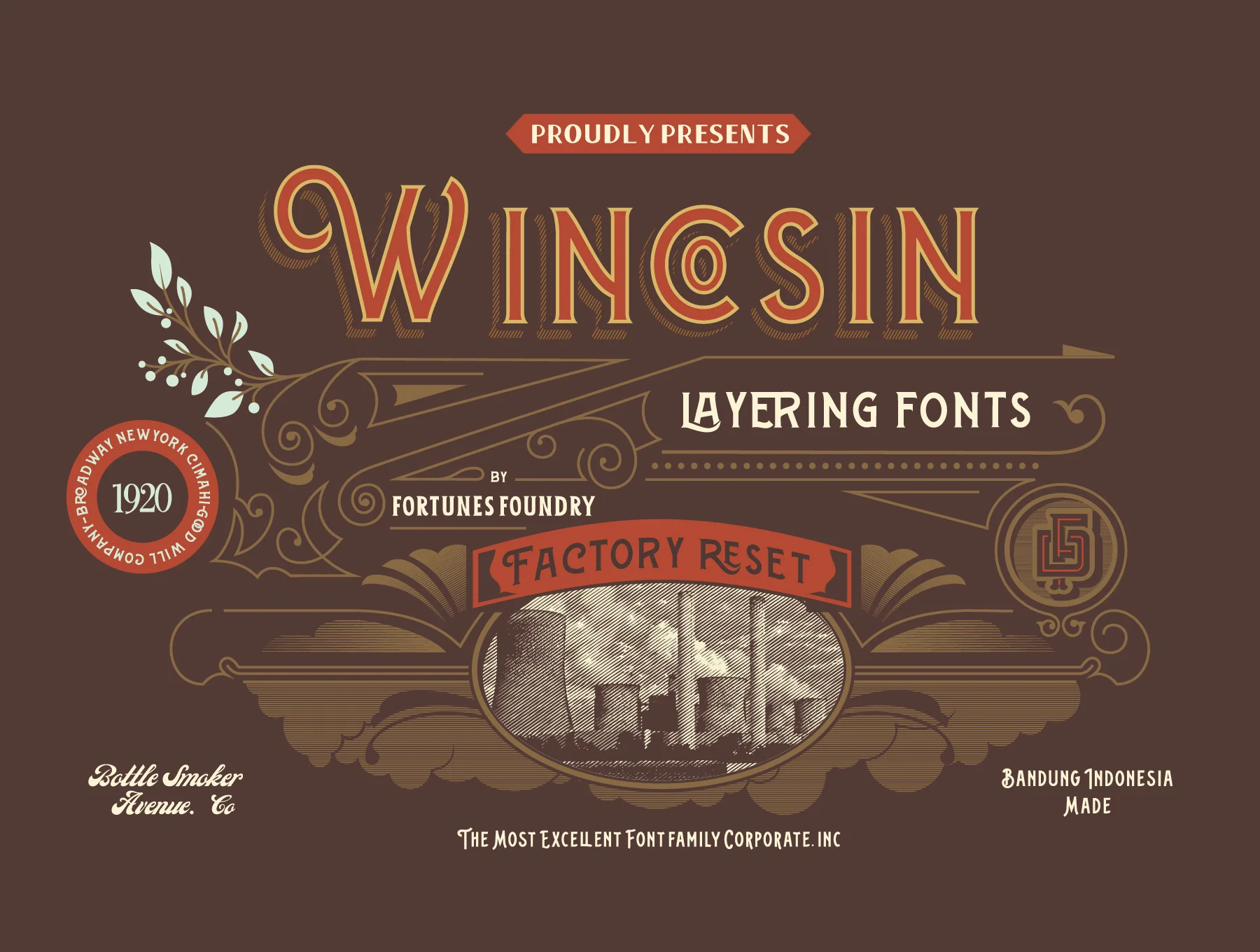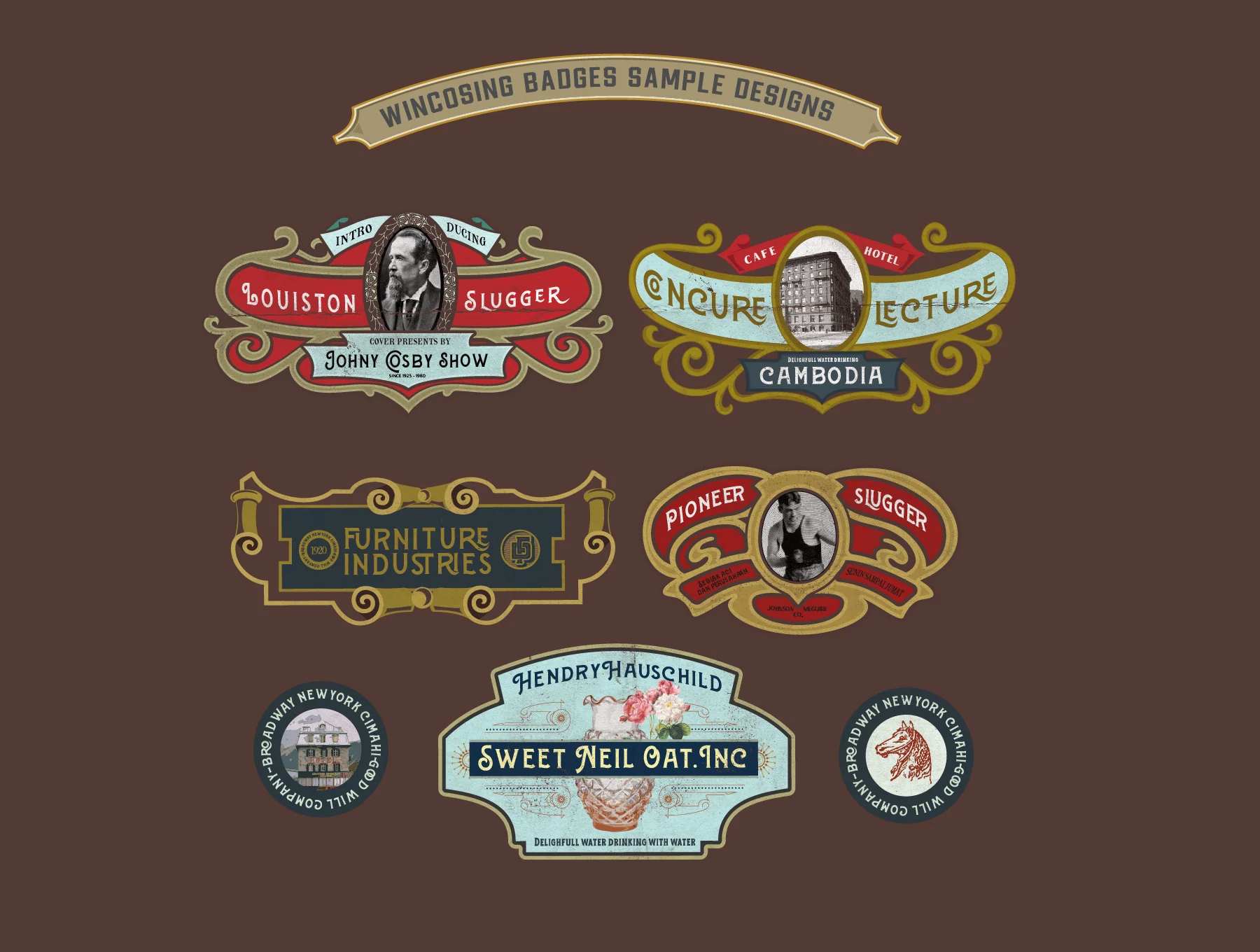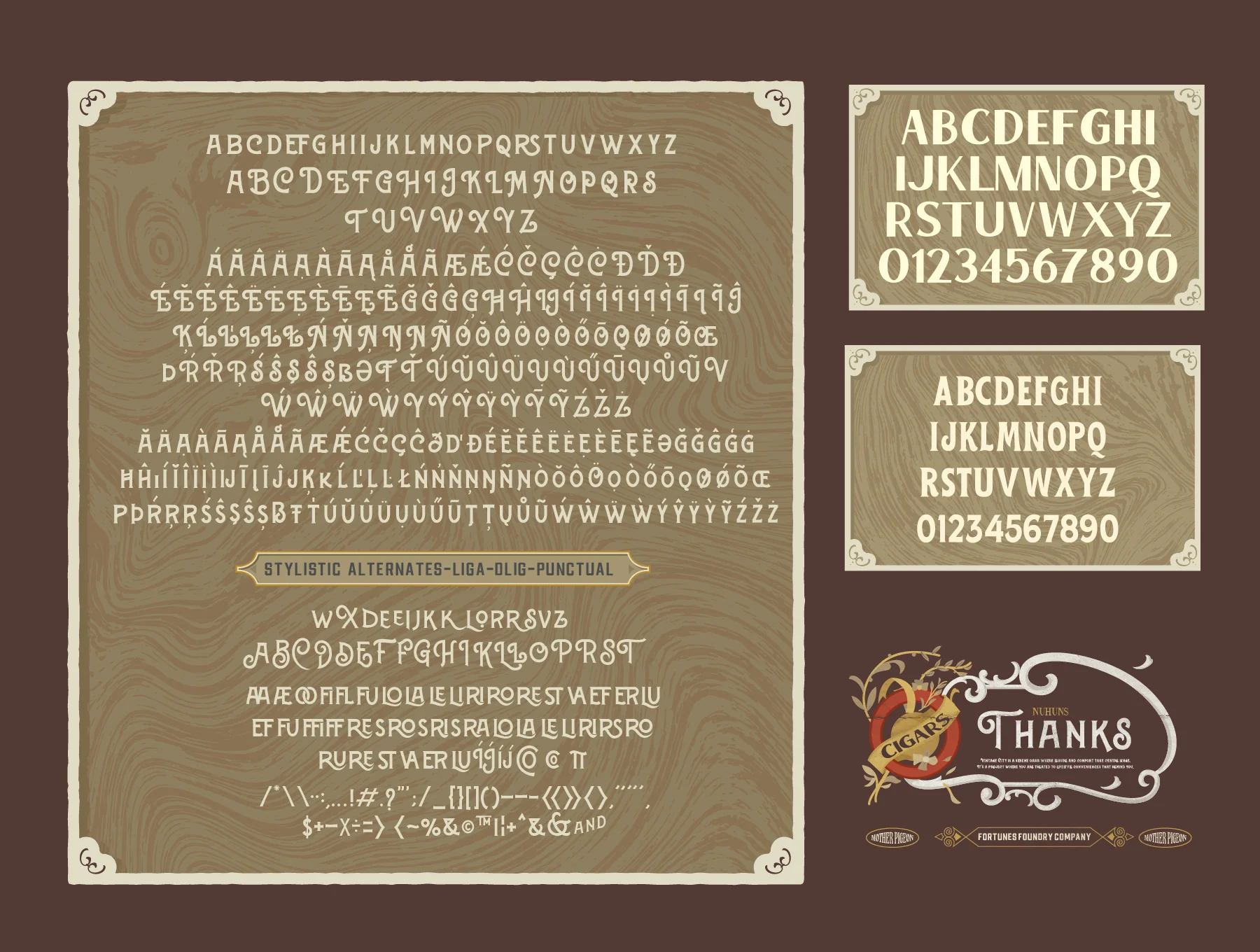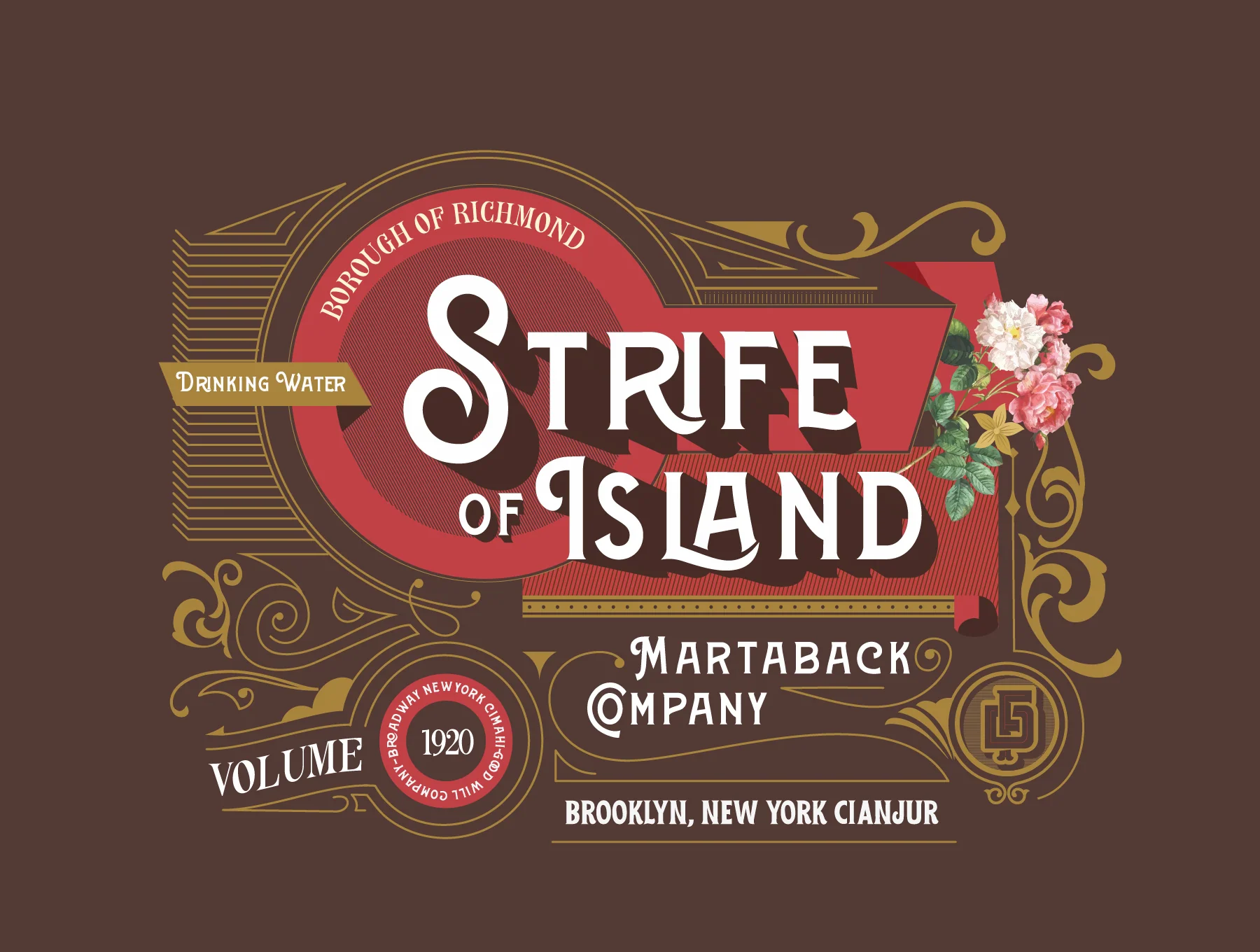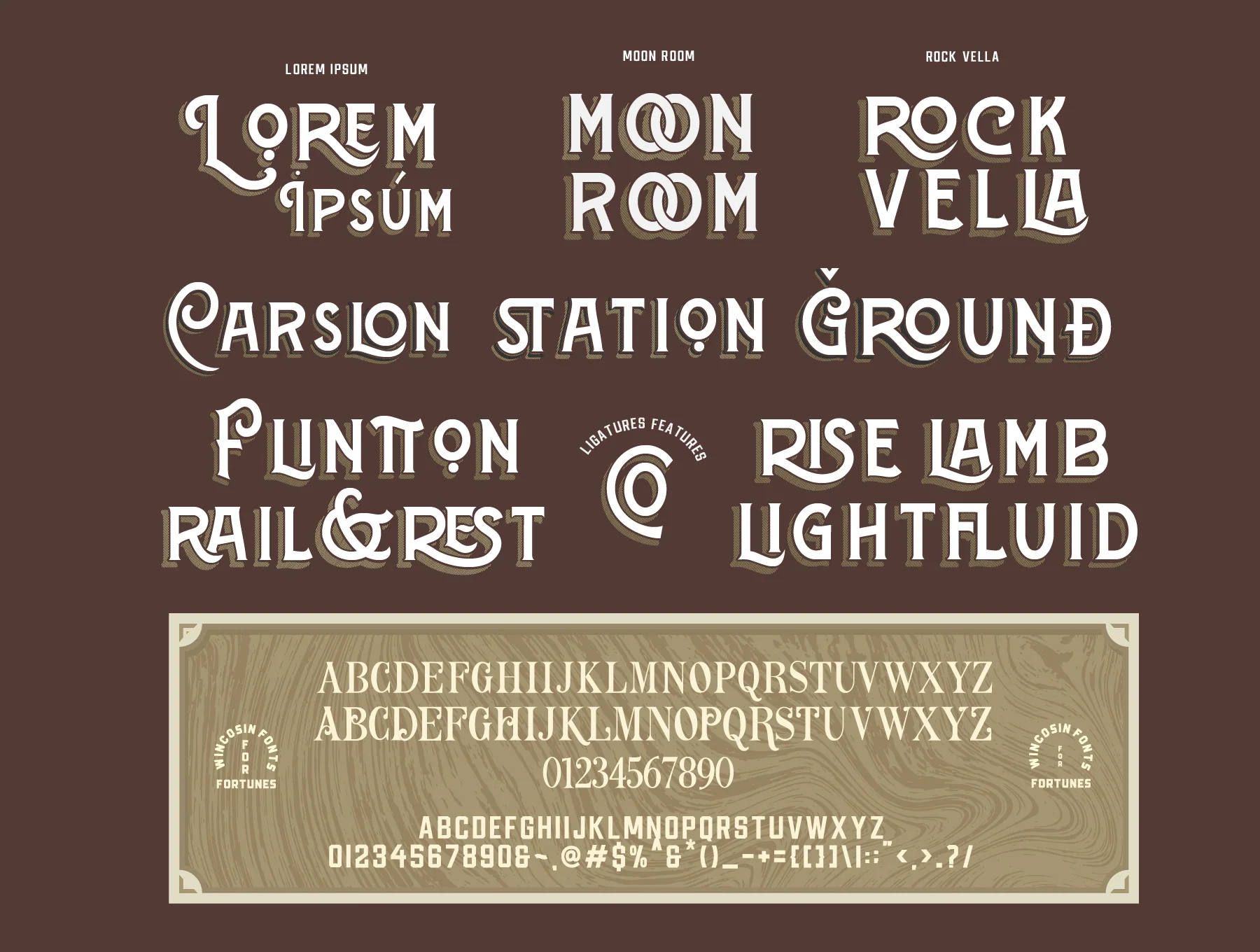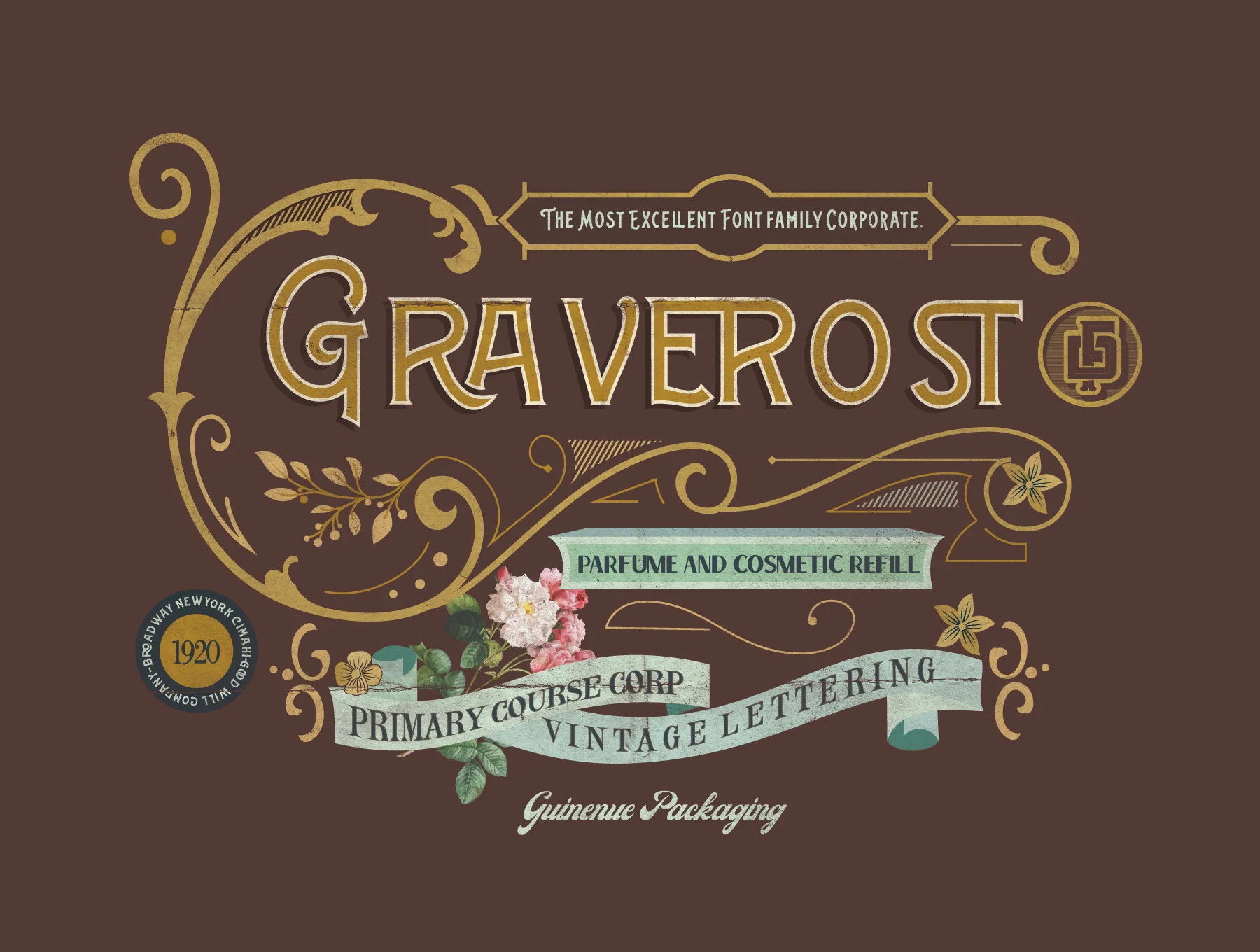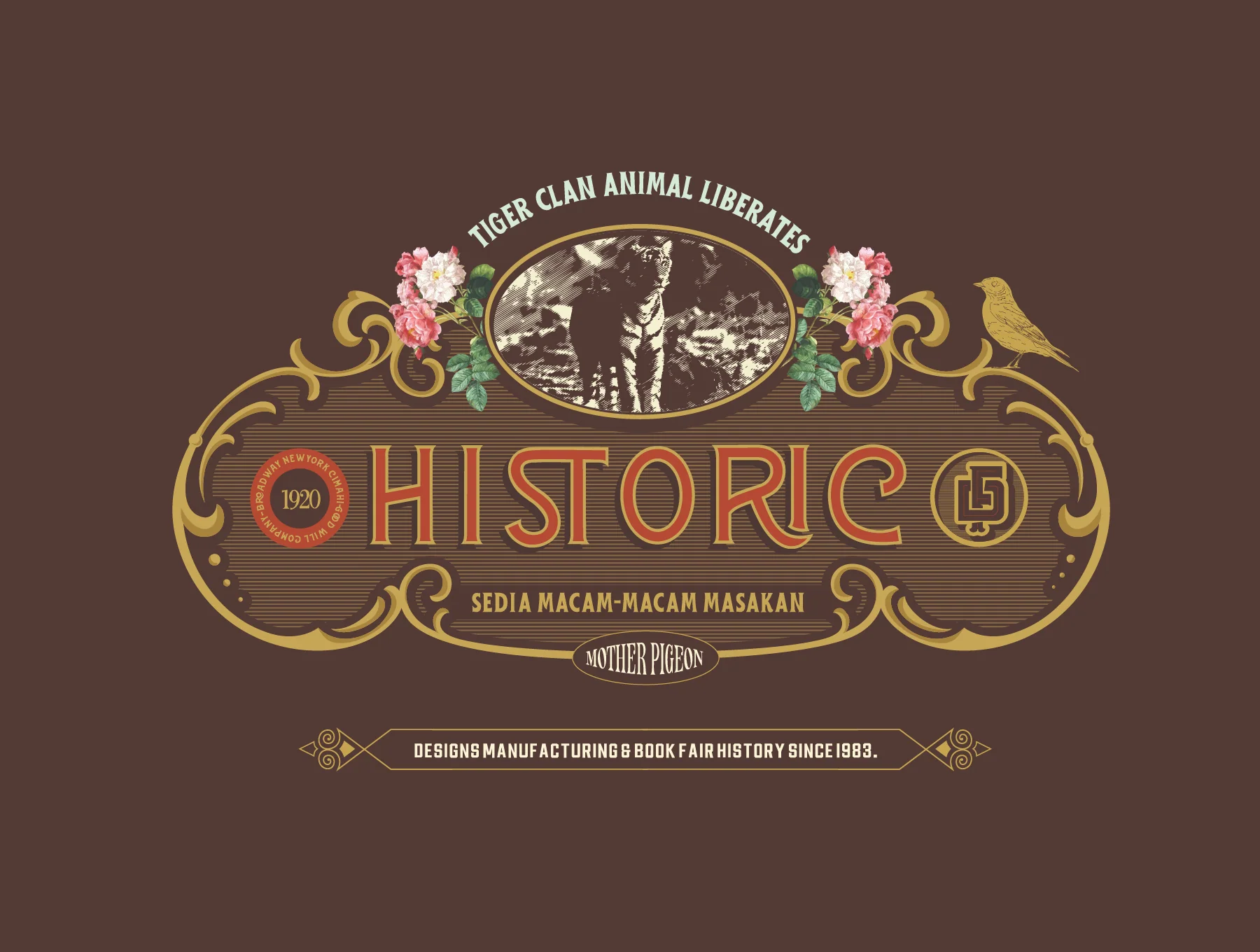
Wincosin Font Layering
Layered Wincosin typeface
Wincosin Font Layering
Multilingual compatibility
Retro style
Layered typography
Winston Vintage is a retro layered typeface inspired by classic eras, ideal for old-style labels, traditional signage, and vintage-themed designs. It also includes support for multiple foreign languages.